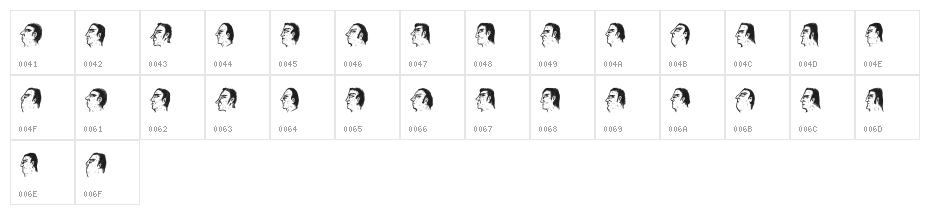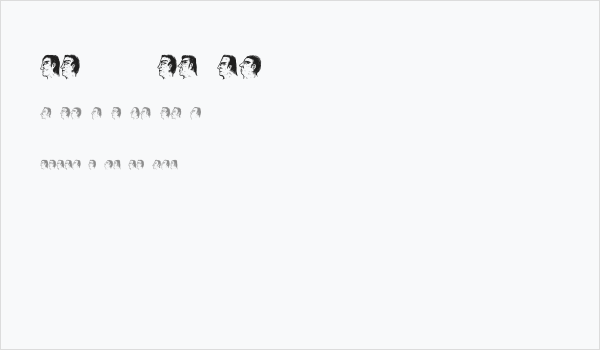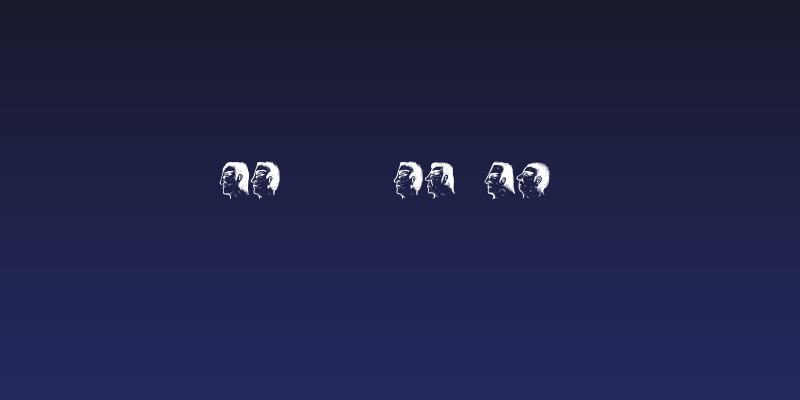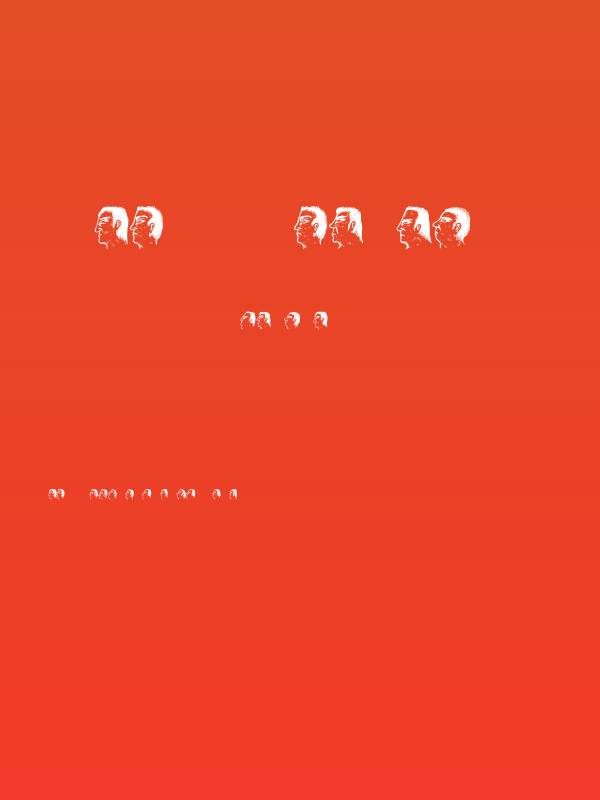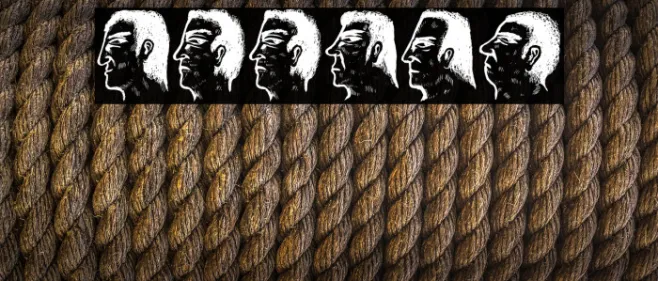
Herr Regular Font
Herr Regular Description
A highly decorative and illustrative font composed of repeated hand-drawn human profile illustrations for each character, giving a whimsical and artistic appearance rather than traditional letterforms.
| Overall Style | Decorative, Artistic, Whimsical |
| Use Case | Logos, Headlines, Posters, Art pieces |
| Proposed Projects | Posters, album covers, art projects, editorial illustrations, experimental design. |